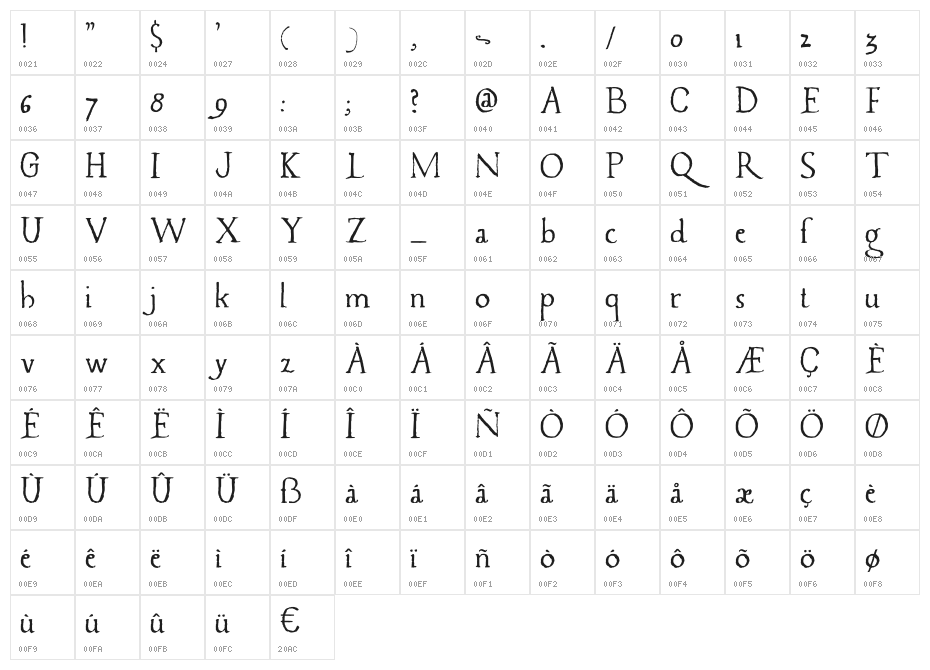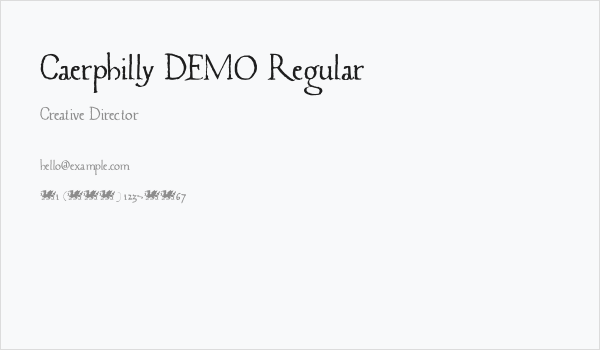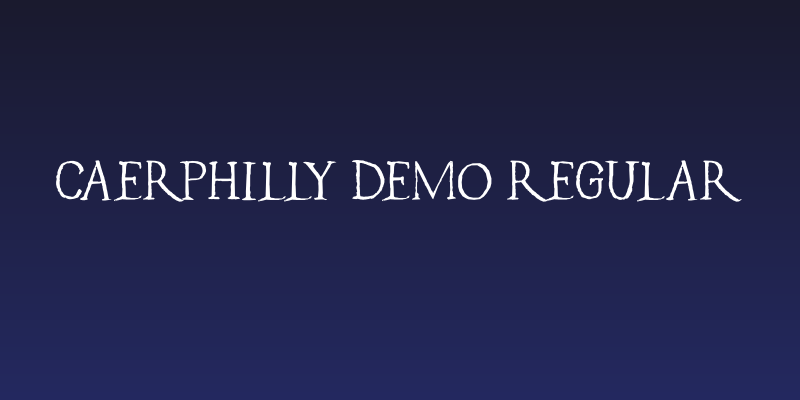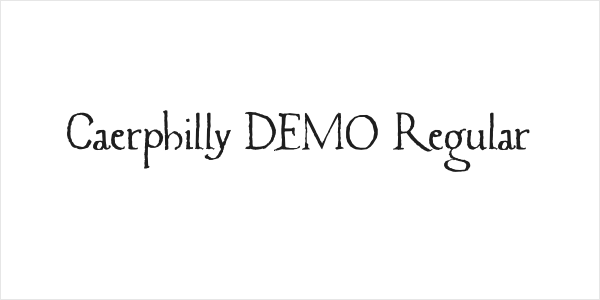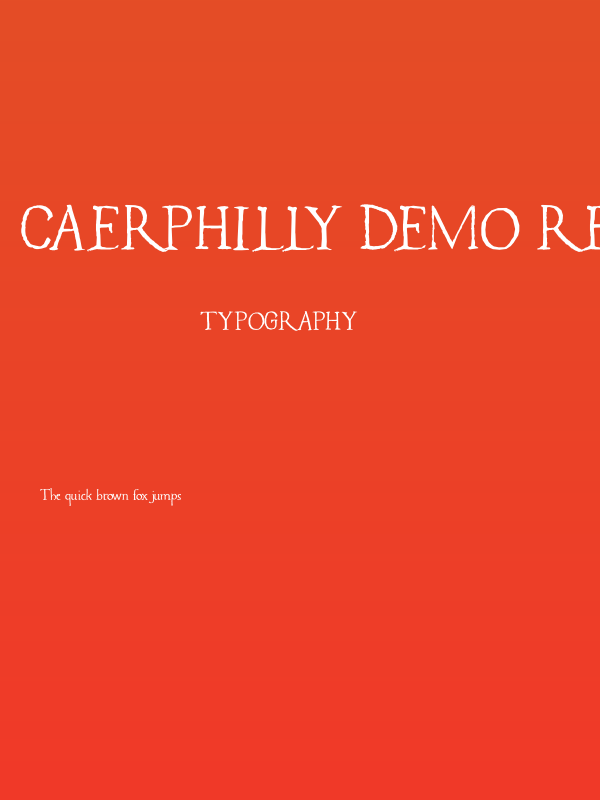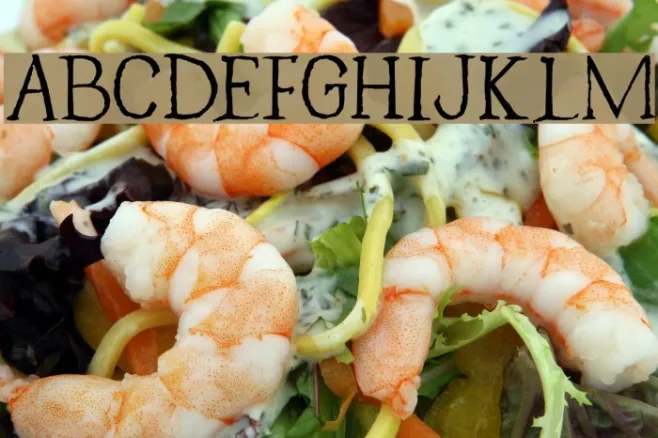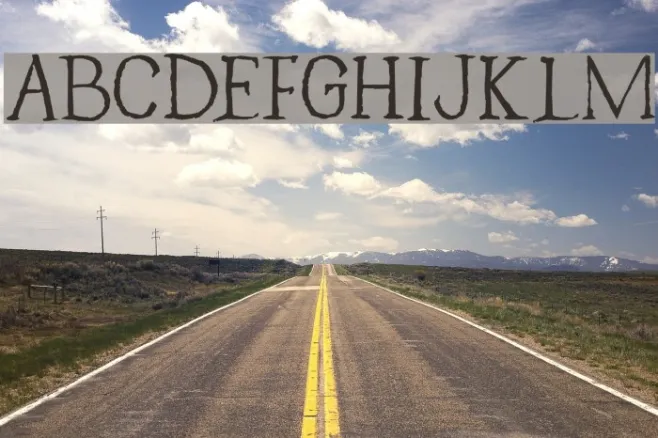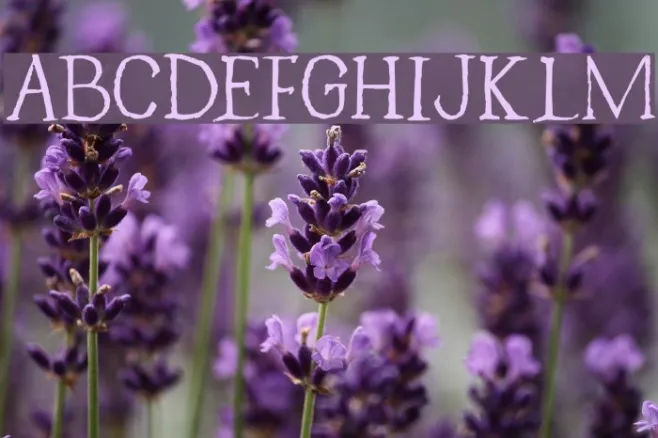
Caerphilly DEMO Regular Font
Caerphilly DEMO Regular Description
This font features a distinctive and artistic style, reminiscent of medieval script with a modern twist. The uppercase letters are bold and slightly elongated, giving them a commanding presence. The lowercase letters maintain a consistent flow, with unique curves and angles that add character. The numbers are stylized with a similar flair, ensuring they stand out. Special characters include a dragon motif, adding a decorative and thematic element. The overall design is both decorative and functional, suitable for projects requiring a touch of historical or fantasy-inspired aesthetics.
| Use Case | Logos, Headlines, Themed Designs |
| Proposed Projects | Ideal for fantasy-themed designs, historical event posters, book covers, and themed branding. |